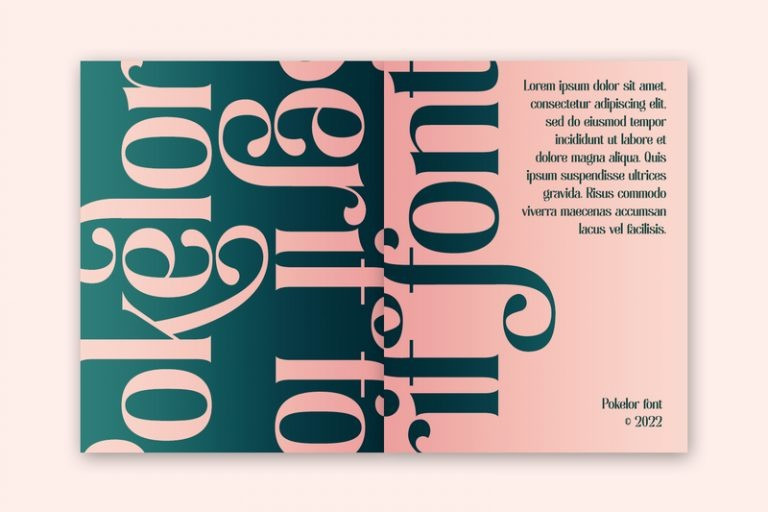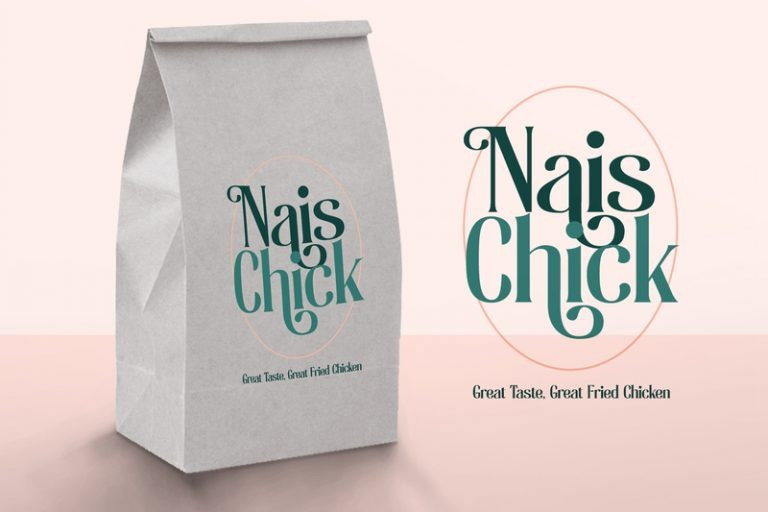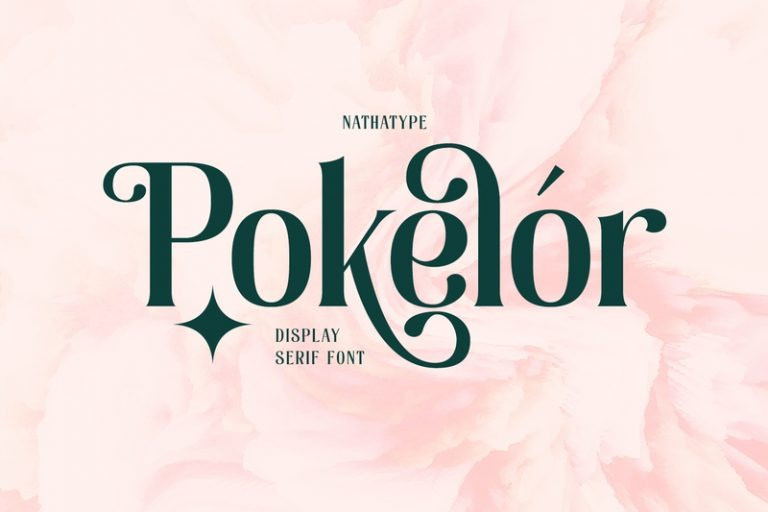
Pokelor Font
Pokelor Serif Font is a display serif font beautifully designed with harmony between function and beauty showing you elegant, modern yet less formal impressions. The little hooks’ continuity elements help the eyes to keep flowing from one letter to another. With wide spaces and easily noticeable letters, this font is truly legible with which you can apply for any text sizes. Furthermore, enjoy the interesting features available in this font.